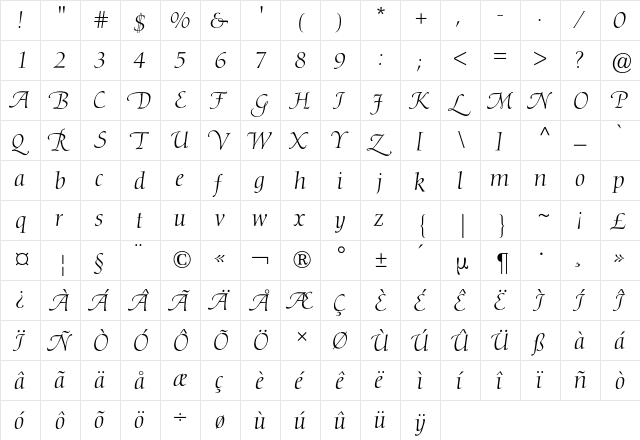
Diotima Expert BQ Regular Font Preview
Diotima Expert BQ Regular
Design Context for Diotima Expert BQ Typeface
Diotima Expert BQ offers clean, dependable letterforms without strong stylistic allegiance, making it a practical choice for designers who need flexibility.